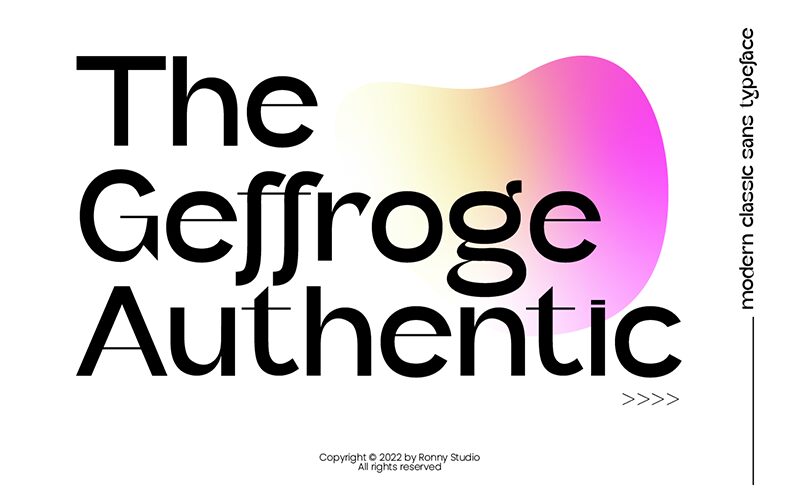
Geffroge Authentic, designed by Ronny Studio, is a modern sans serif font with a semi-light weight and semi-expanded width. Its clean and contemporary design makes it perfect for a wide range of projects. For elegant brand logos, Geffroge Authentic adds a touch of sophistication. In editorial designs, its legibility makes it ideal for long-form articles or magazines. When used in web design, this font's clarity ensures easy readability on screens of all sizes. Whether crafting sleek business cards or eye-catching posters, Geffroge Authentic brings a fresh and stylish vibe to any creative endeavor.
Geffroge Authentic